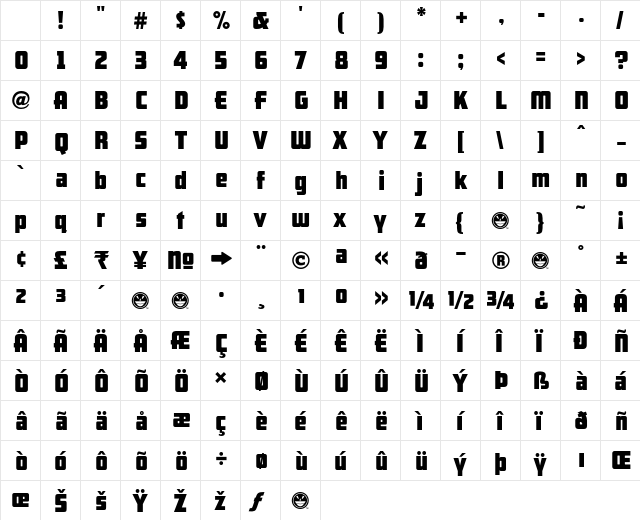
Complete ARB 66 Neon Block JUN-37 Regular glyph index. Displaying only characters natively supported by ARB 66 Neon Block JUN-37 Regular font.
ARB 66 Neon Block JUN-37 has a distinctly futuristic character, with geometric precision and clean angles that feel at home in technology, gaming, and sci-fi contexts.
Pro Tip: Try ARB 66 Neon Block JUN-37 with generous letter-spacing in UI labels and navigation - the geometric forms benefit from room to breathe.